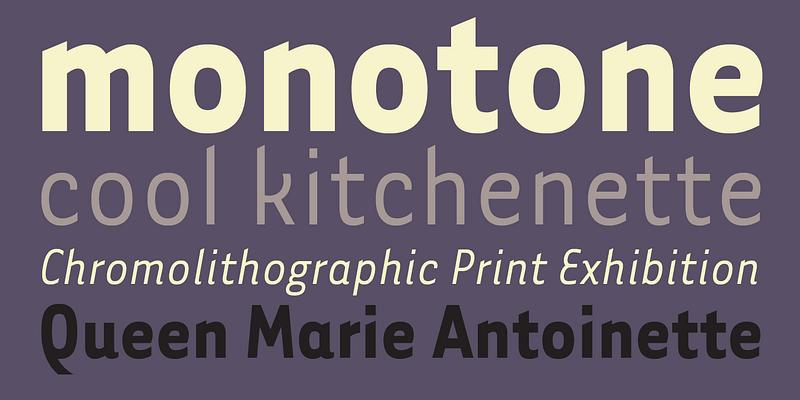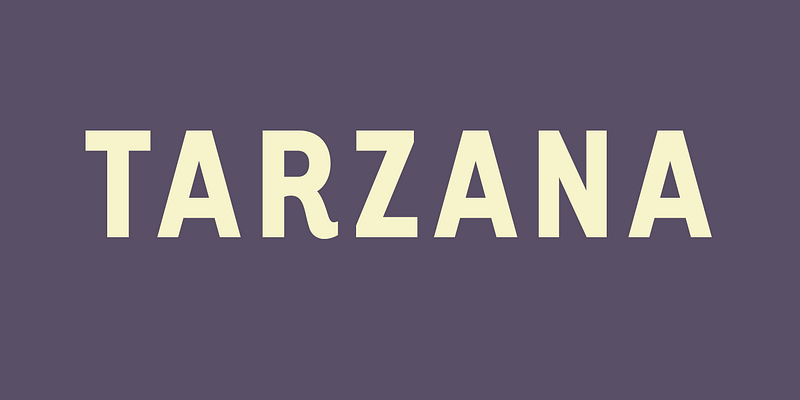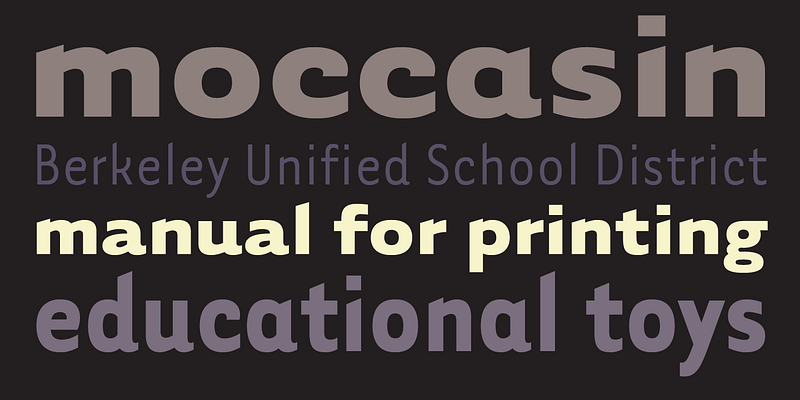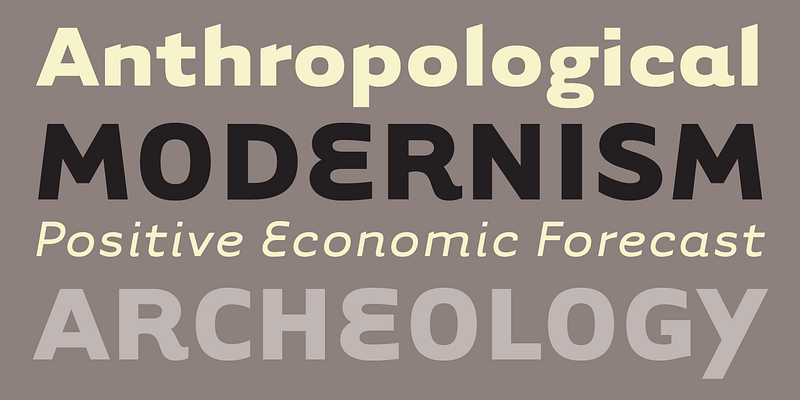
These two families of sans-serif text faces were developed purely along formal lines. The goal was to balance the neutrality required for a text face with just enough idiosyncrasies to create a slightly unfamiliar design in order to provide new interest.
Of course, both of these extremes are necessary, but seldom is either extreme desirable. If everything was neutral, we wouldn’t be able to tell things apart due to their sameness. Alternately, if everything was purely expressive, we wouldn’t be able to make sense of the visual world around us.
The definition of what is neutral (traditional or familiar) versus that which is idiosyncratic (expressive or unusual), is continually changing, as new typeface designs are added. Over time, what may once have seemed unusual becomes familiar through repeated usage. This shifting continually provides new contexts for new designs which in turn alter these definitions yet again, thus completing the cycle.
Tarzana’s design process was one of visual editing by discarding overly familiar ideas, while assimilating new ones without compromising legibility. Often, a particular decision would conjure up more questions than it answered, and changing one character often lead to the reworking of an entire range of related characters, as the various stages and permutations of letterforms shown here illustrate.
The roman (upright) and italic versions were designed simultaneously, with the purpose of cross-pollination. In some instances, roman character designs were developed on the basis of the italics, resulting in such features as the curved arm on the lower case “k,” the asymmetric capital “Y,” and the rounded capital “E,” yielding an informal feel to the entire family.